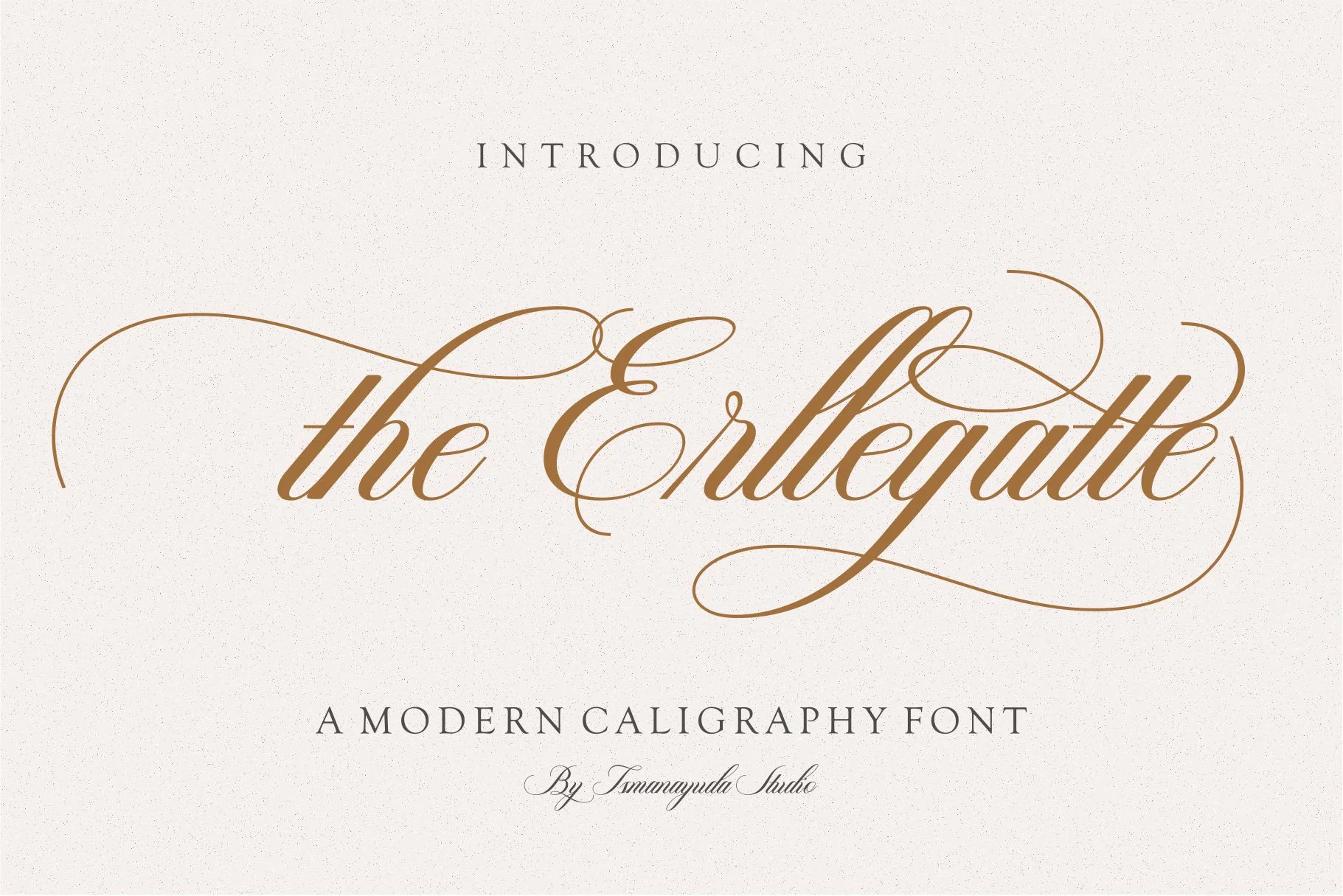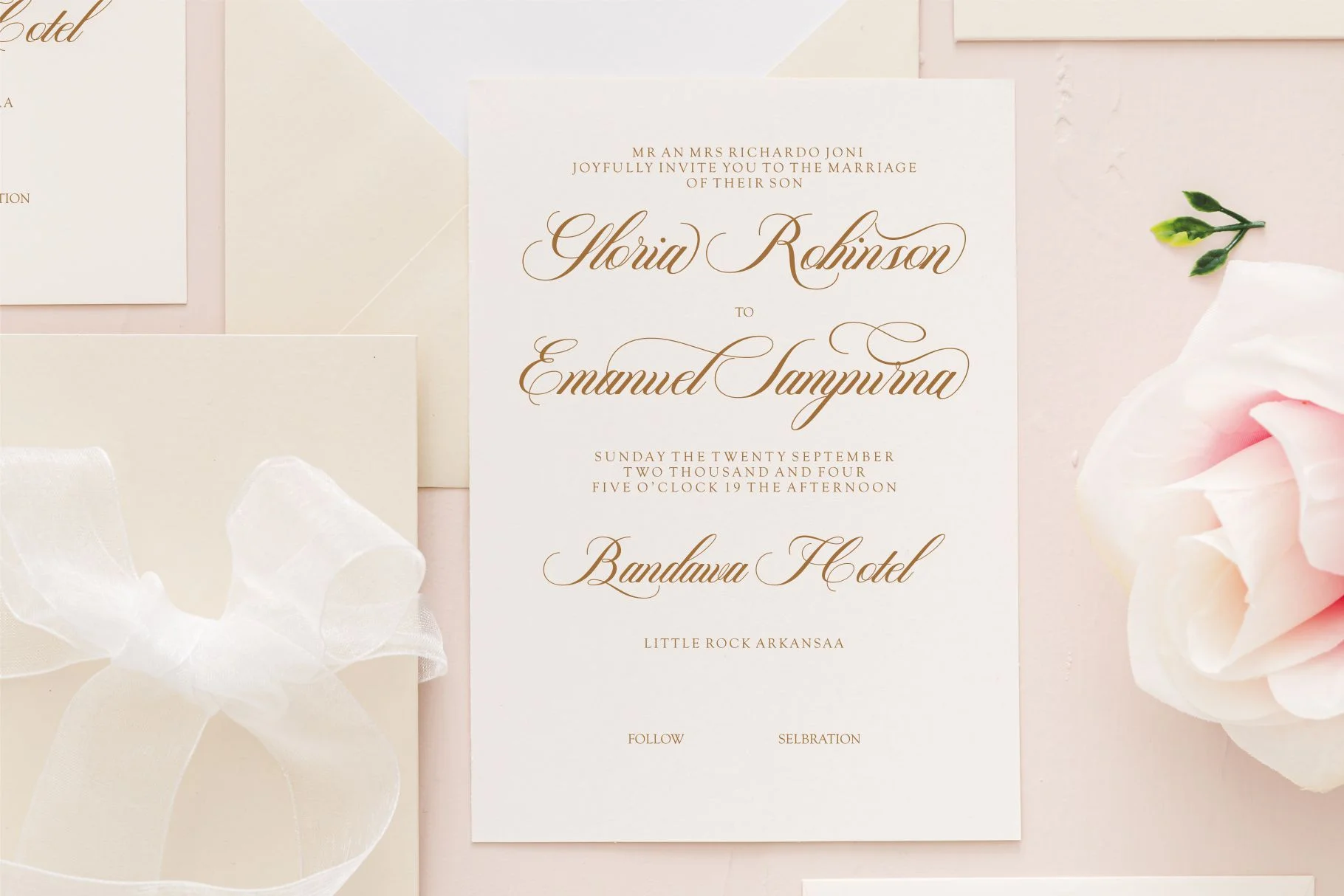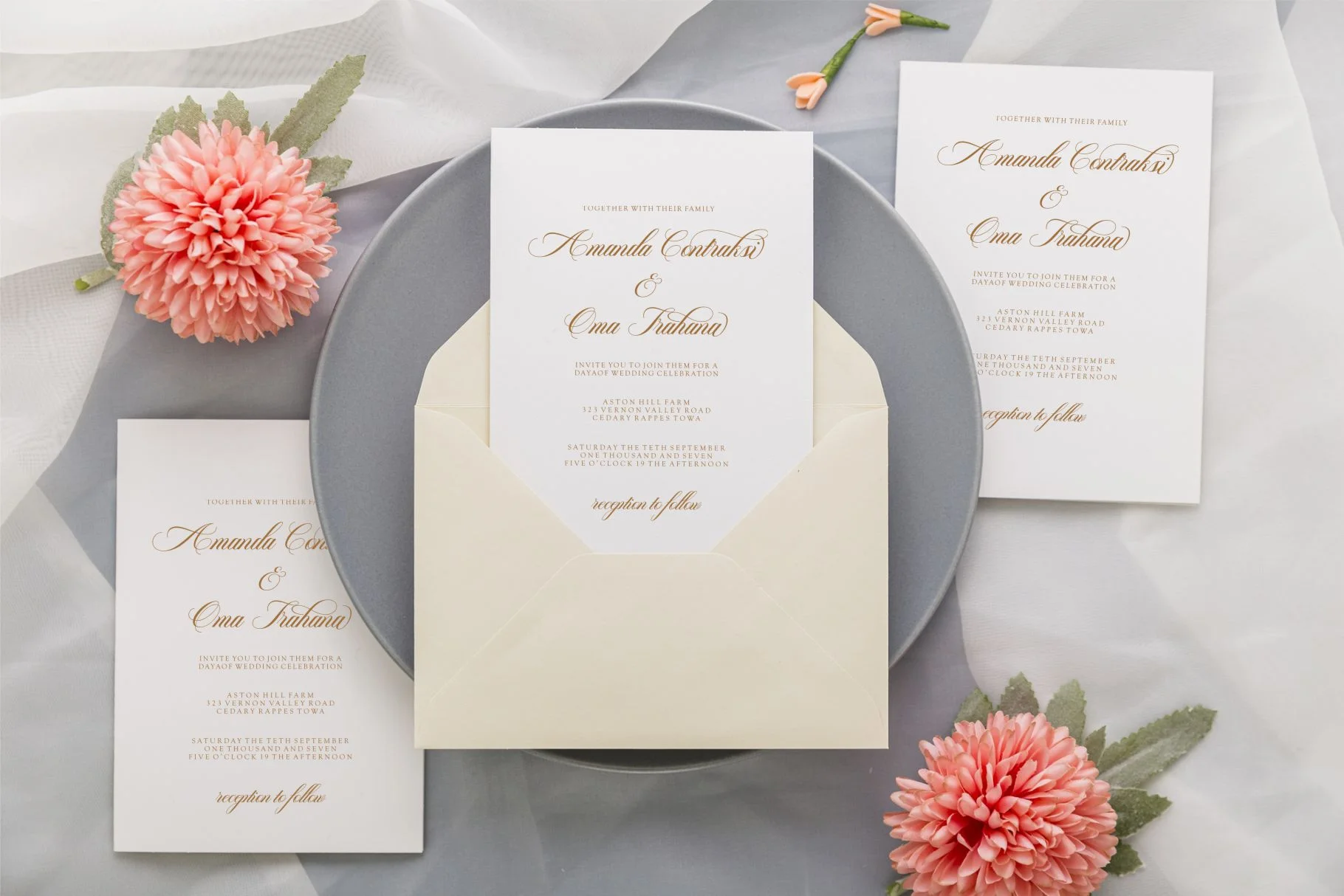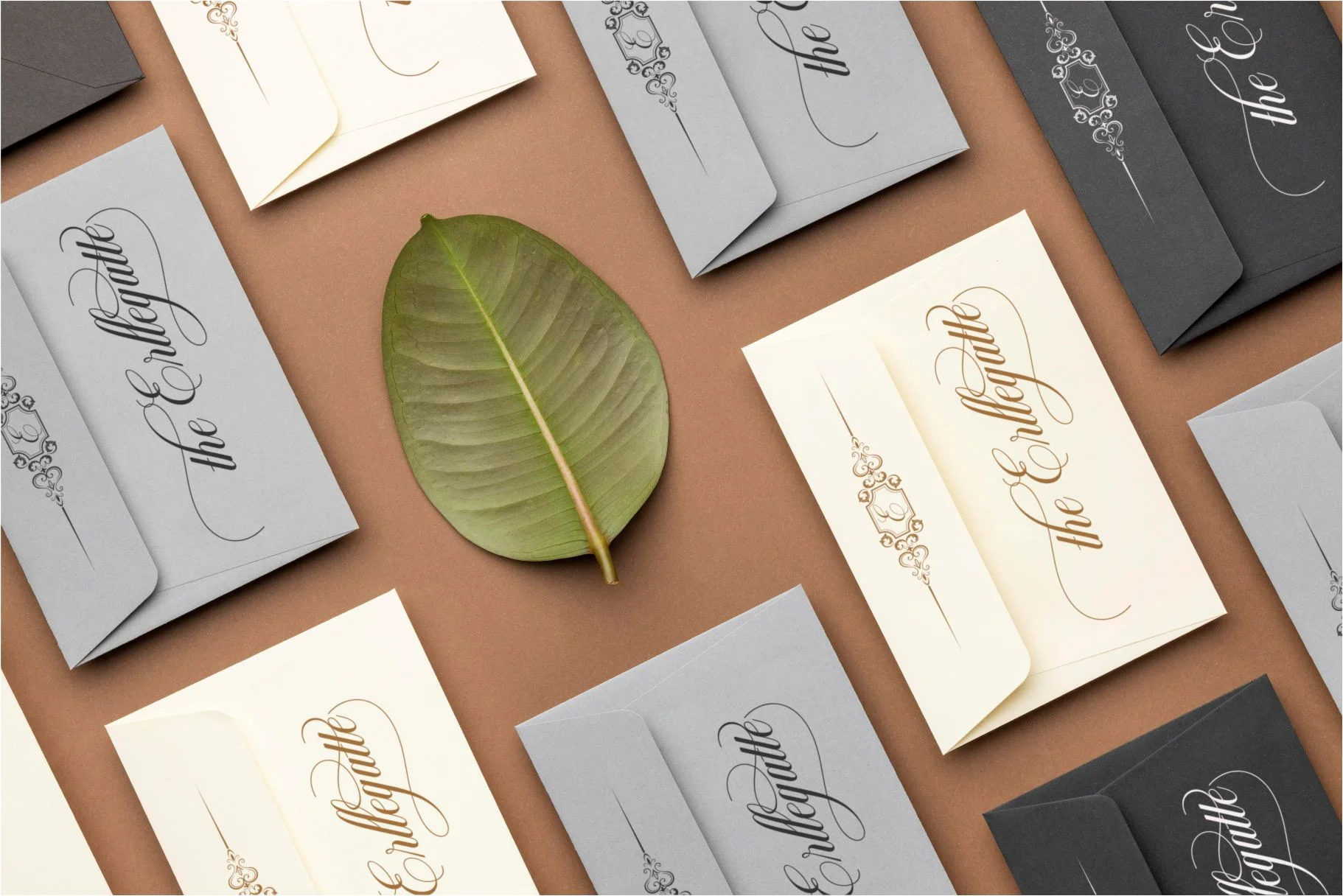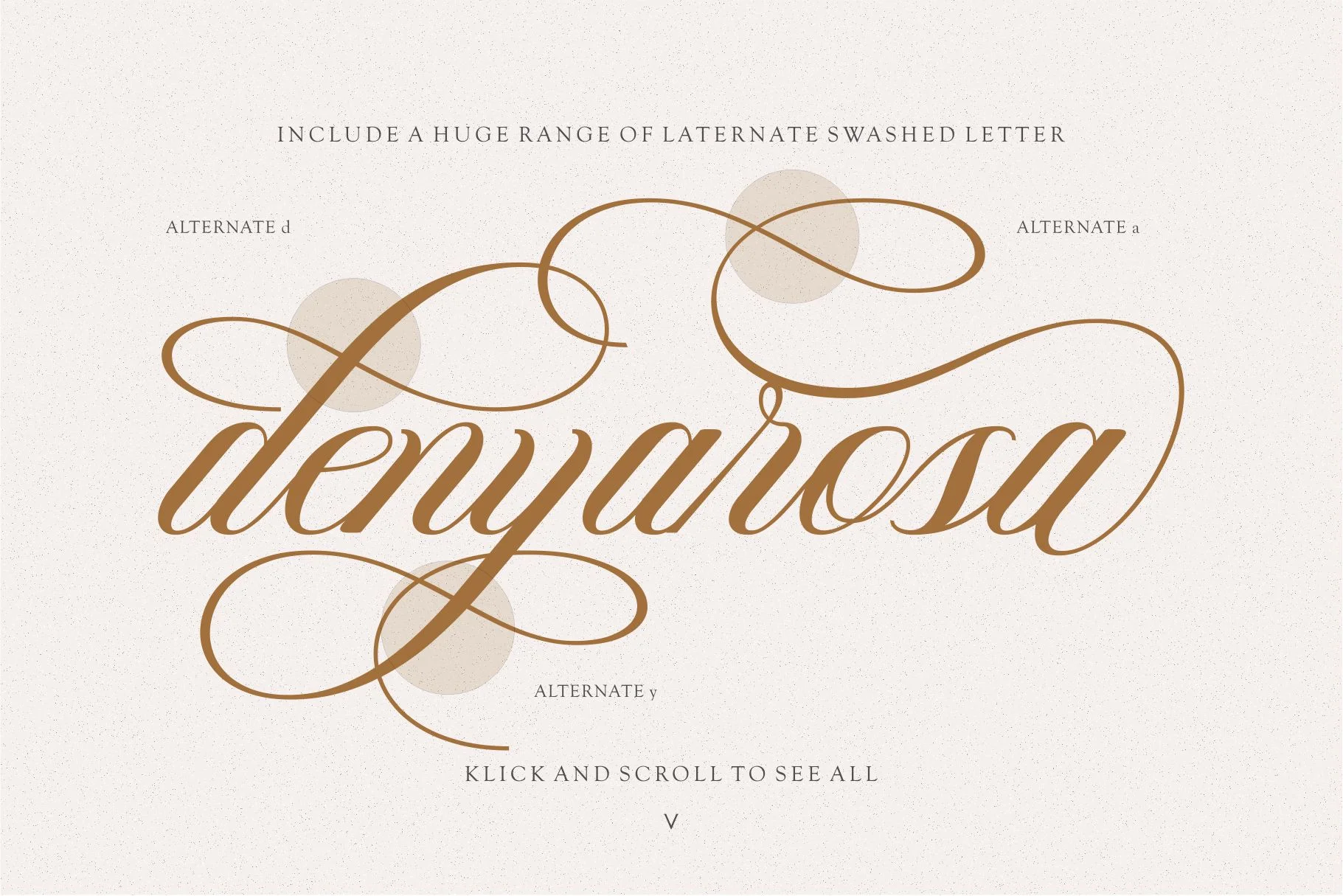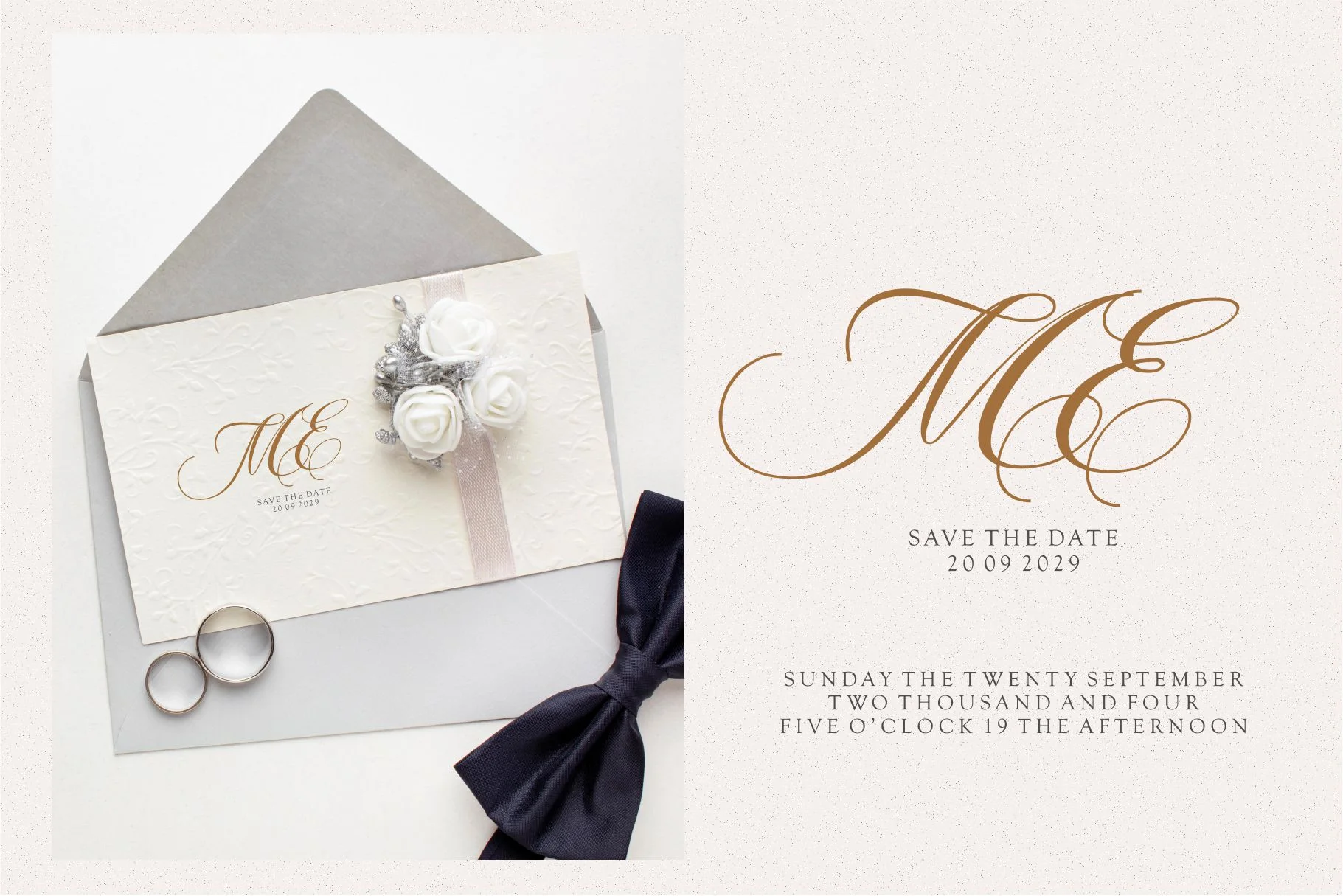
The Erllergatte
The Erllegatte is characterized by its high-impact visual appeal, featuring dramatic sweeping swashes and a sophisticated, handwritten flow. It blends traditional calligraphic elegance with a contemporary touch, making it highly versatile for a wide range of creative projects. The typeface includes a full set of uppercase and lowercase letters, numerals, and multilingual support, along with OpenType features like alternate swashes that allow for highly customized layouts. This font is specifically tailored for projects requiring an upscale, personal feel, such as wedding invitations, luxury branding, photography watermarks, and editorial headlines.